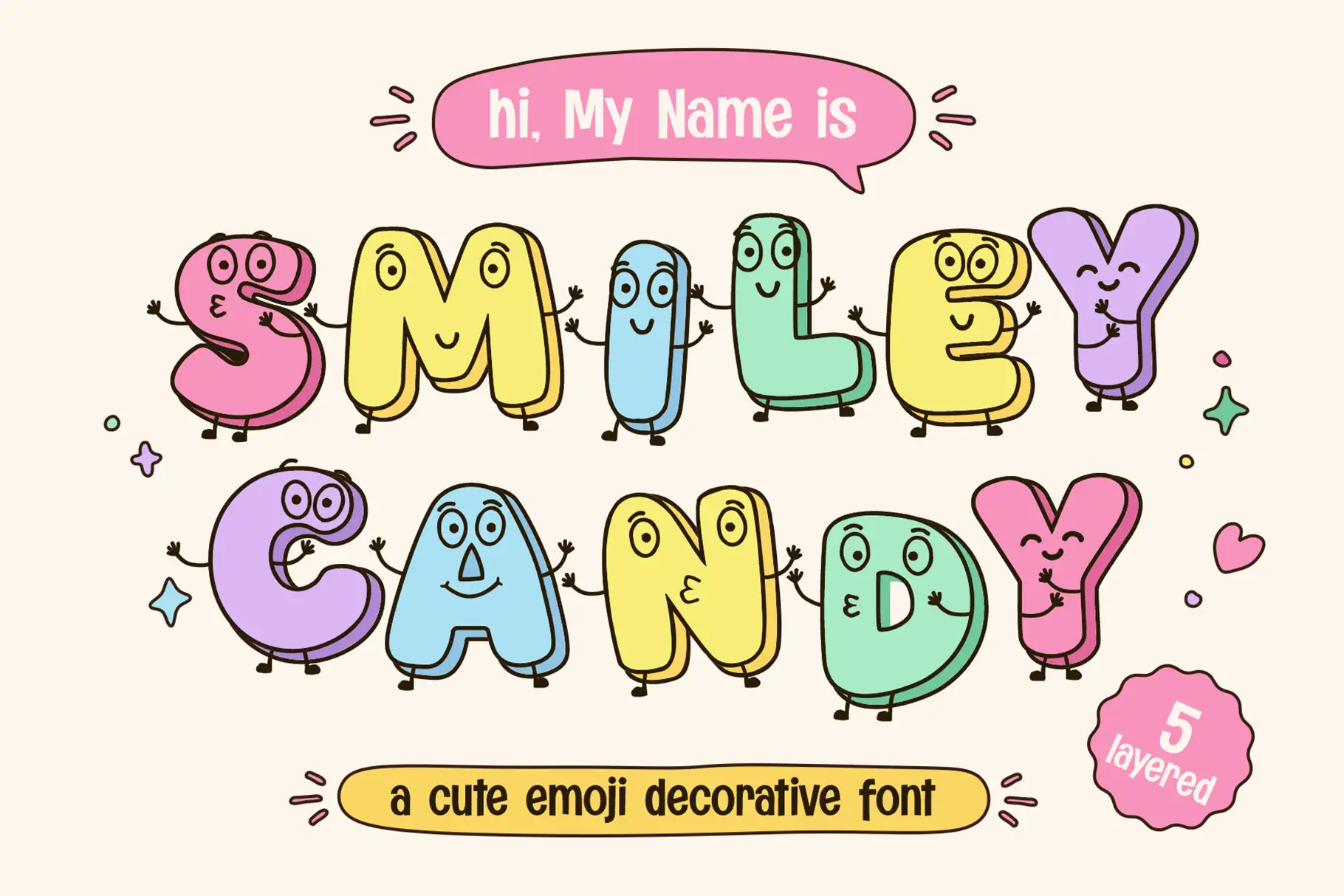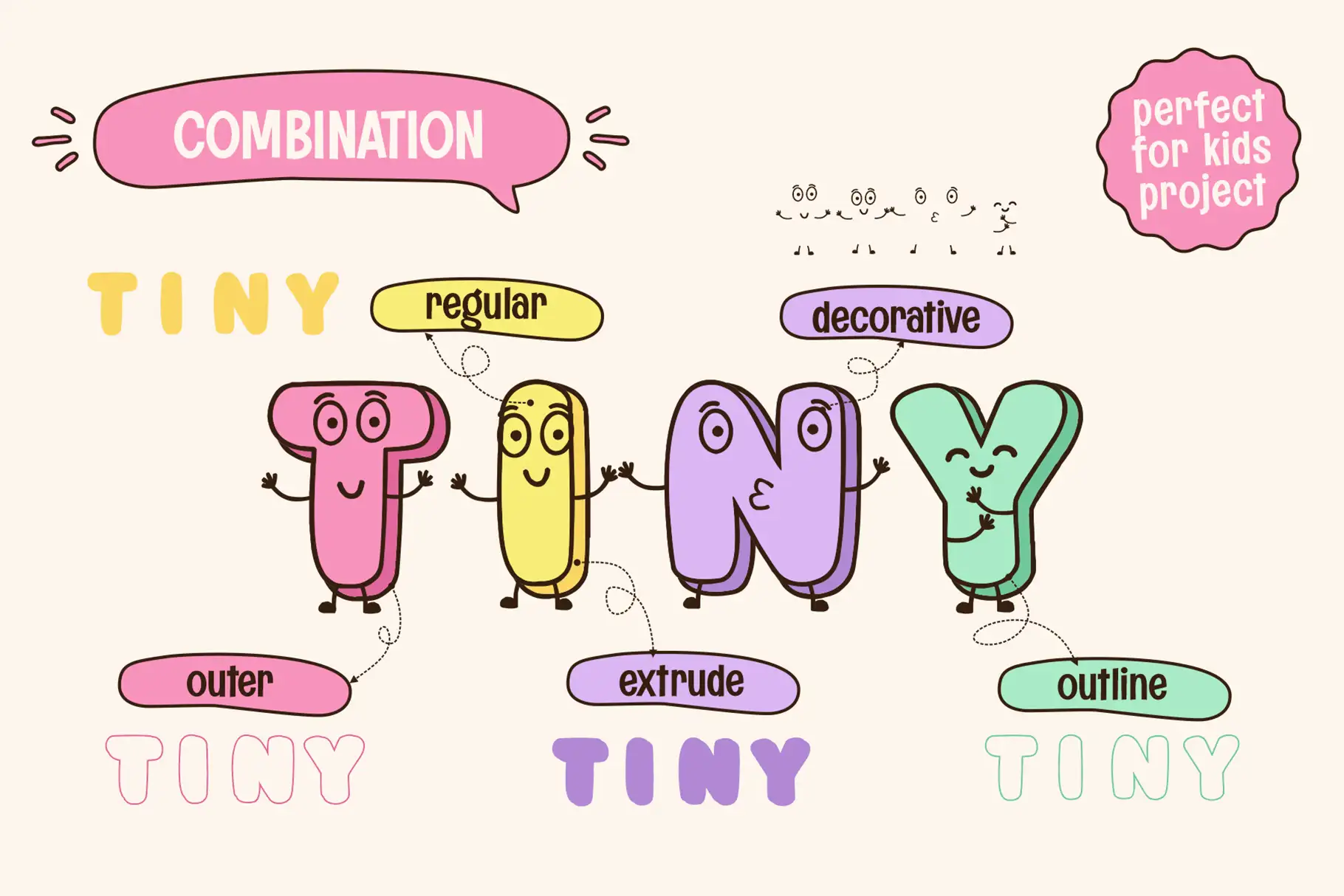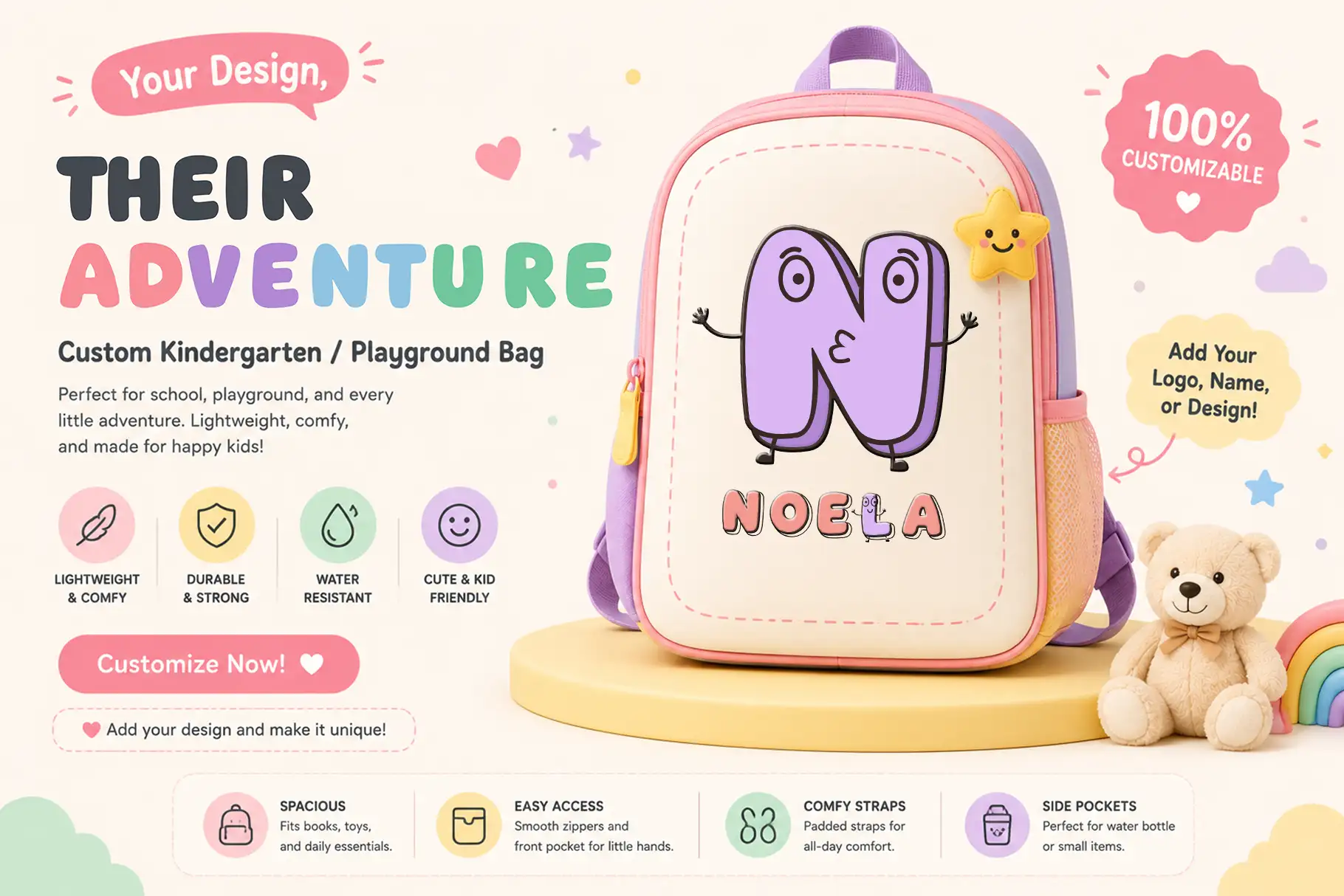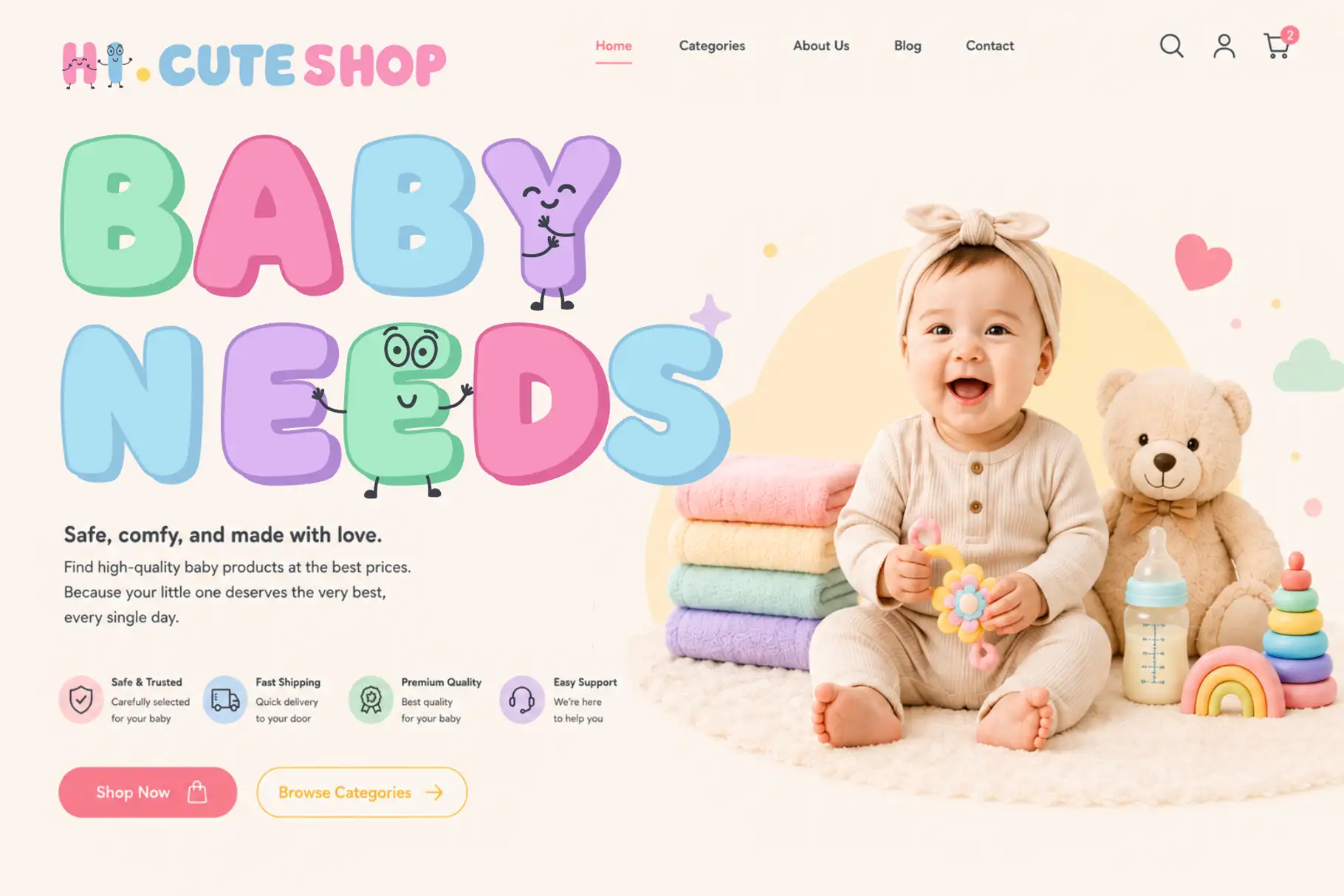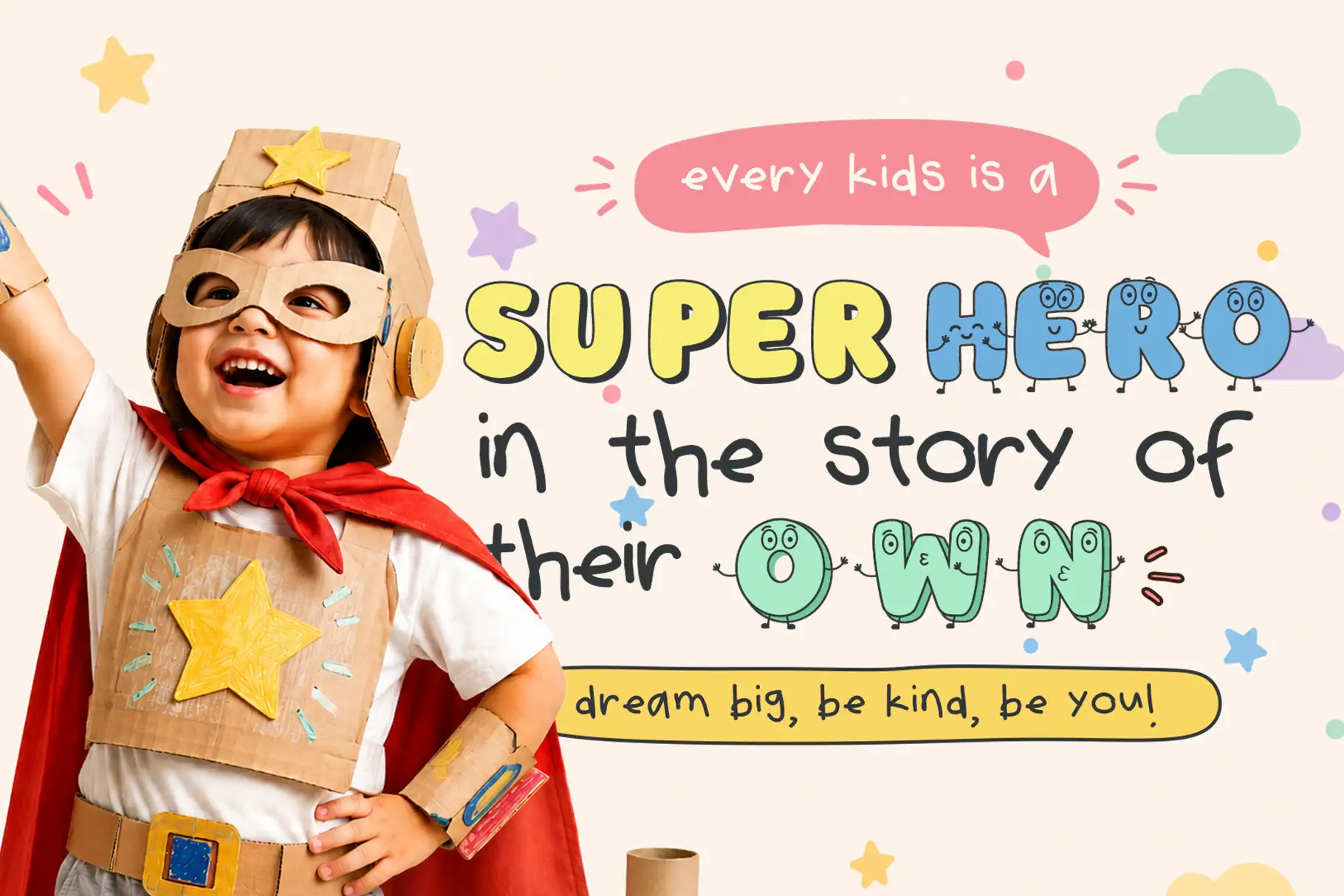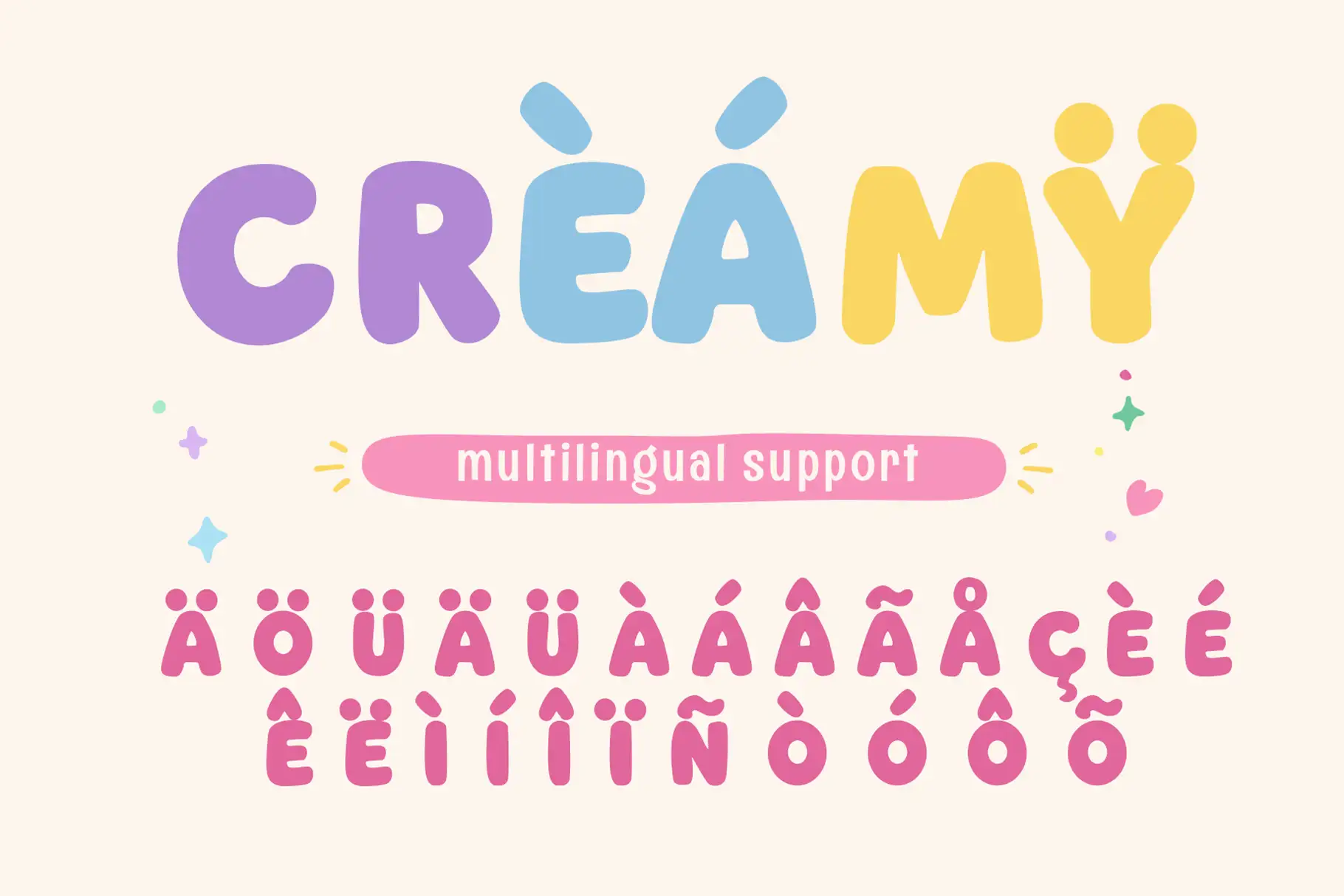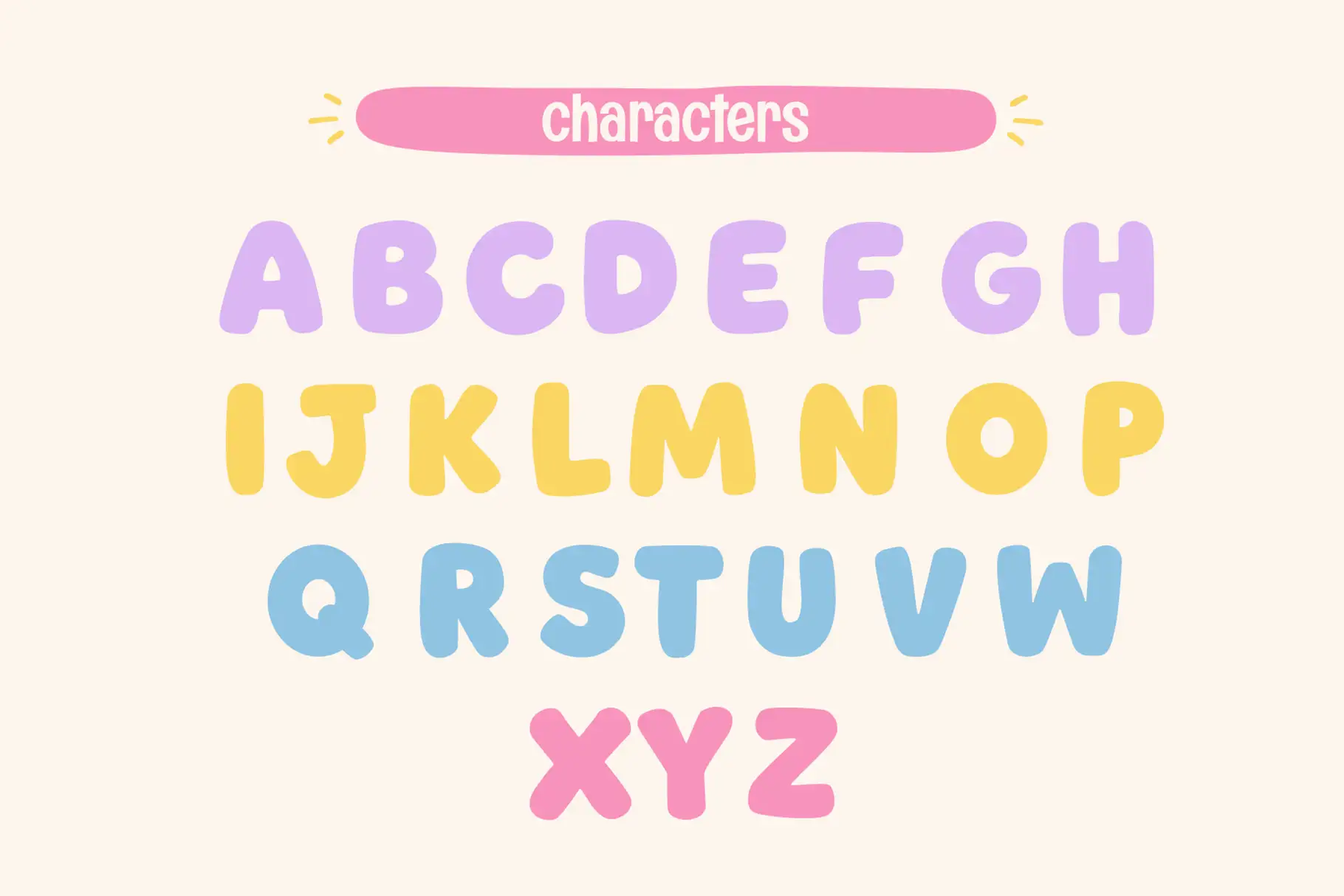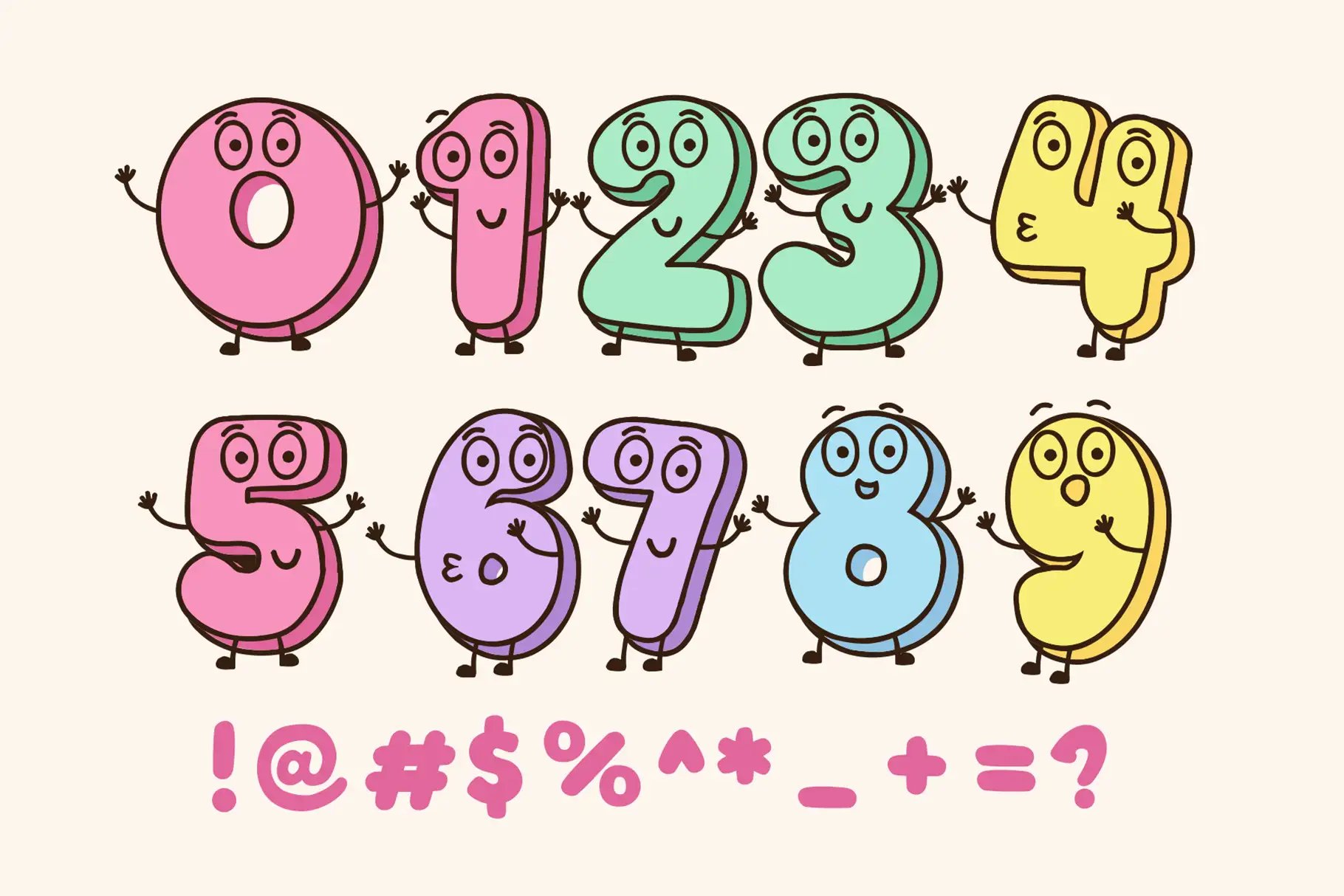
Smiley Candy Cute Emoji Font for Cheerful Creative Projects
Smiley Candy cute emoji font is a playful display font made for designs that need joy, friendliness, and instant visual charm. With its emoji-inspired style, all-caps character set, and five included font variations, Smiley Candy gives designers a flexible way to create bright titles, cheerful layouts, and expressive typography for both print and digital projects.
This font is especially useful for posters, greeting cards, party graphics, educational materials, classroom designs, kids-themed branding, and playful social media visuals. Its strong readability makes it practical for titles and display text, while its cute personality helps every word feel more approachable.
Smiley Candy is designed for creative projects that should feel happy, friendly, and easy to love. Whether you are creating a birthday invitation, a children’s activity sheet, a school poster, a sticker-style graphic, or a colorful product label, this font brings a sweet emoji-inspired voice to your design.
Smiley Candy has a cute, cheerful, and playful personality. The emoji-inspired style makes it feel expressive without becoming difficult to use. It is made to catch attention quickly, which makes it a strong choice for designers who work on joyful and kid-friendly visuals.
The all-caps character set gives your typography a consistent structure. This is helpful when creating bold titles, short phrases, names, labels, and decorative display text. Instead of feeling plain or rigid, the all-caps design keeps the composition fun and energetic.
The five font variations add more creative freedom. You can use the regular Smiley Candy style on its own, build contrast with the Outline style, add dimension with the Extrude style, create emphasis with the Outer style, or add extra playful detail with the Deco style. These variations make the font useful for layered typography, colorful titles, and eye-catching display compositions.
Best Use Cases
Smiley Candy works beautifully in designs that need a friendly and expressive tone. It is a natural fit for kids brands, party invitations, school events, classroom worksheets, educational posters, digital stickers, greeting cards, birthday graphics, social media posts, YouTube thumbnails, product packaging, and printable designs.
For party designers, Smiley Candy can help create cheerful invitations, banners, welcome signs, favor tags, and themed graphics. For educators and classroom creators, it can bring a more engaging visual tone to learning materials, bulletin boards, flashcards, and activity sheets.
For small business owners and product designers, this font can support playful packaging, children’s product labels, craft kits, toy branding, and fun promotional graphics. For content creators, it can make titles and thumbnails feel more expressive, warm, and clickable without relying on overcomplicated decoration.
Smiley Candy Cute Emoji Font Key Features
• All Caps Character Set for consistent playful typography
• Multilingual Support for broader language compatibility
• 5 Font Variations Included for flexible design possibilities
• Emoji-Inspired Style with cheerful personality
• Suitable for print and digital projects
• Works for posters, cards, educational materials, and party graphics
• Easy to combine and layer using multiple styles
• Strong readability for titles and display text
Designers love Smiley Candy because it gives them more than one simple display style. With five included variations, the font can be used in different ways depending on the project. You can keep the typography clean and readable with the main style, make it more graphic with the Outline style, or build a layered headline by combining several styles together.
This flexibility is valuable for designers who need to create multiple assets within the same campaign. A party invitation, poster, sticker sheet, and social media graphic can all use Smiley Candy while still feeling varied and fresh. That makes it useful for branding systems, themed collections, and product sets.
The emoji-inspired style also gives the font a clear emotional direction. It feels happy, cute, and friendly from the first look. This makes it easier to connect with audiences who respond to warm, expressive, and playful visuals, especially children, families, teachers, crafters, and creative shoppers.